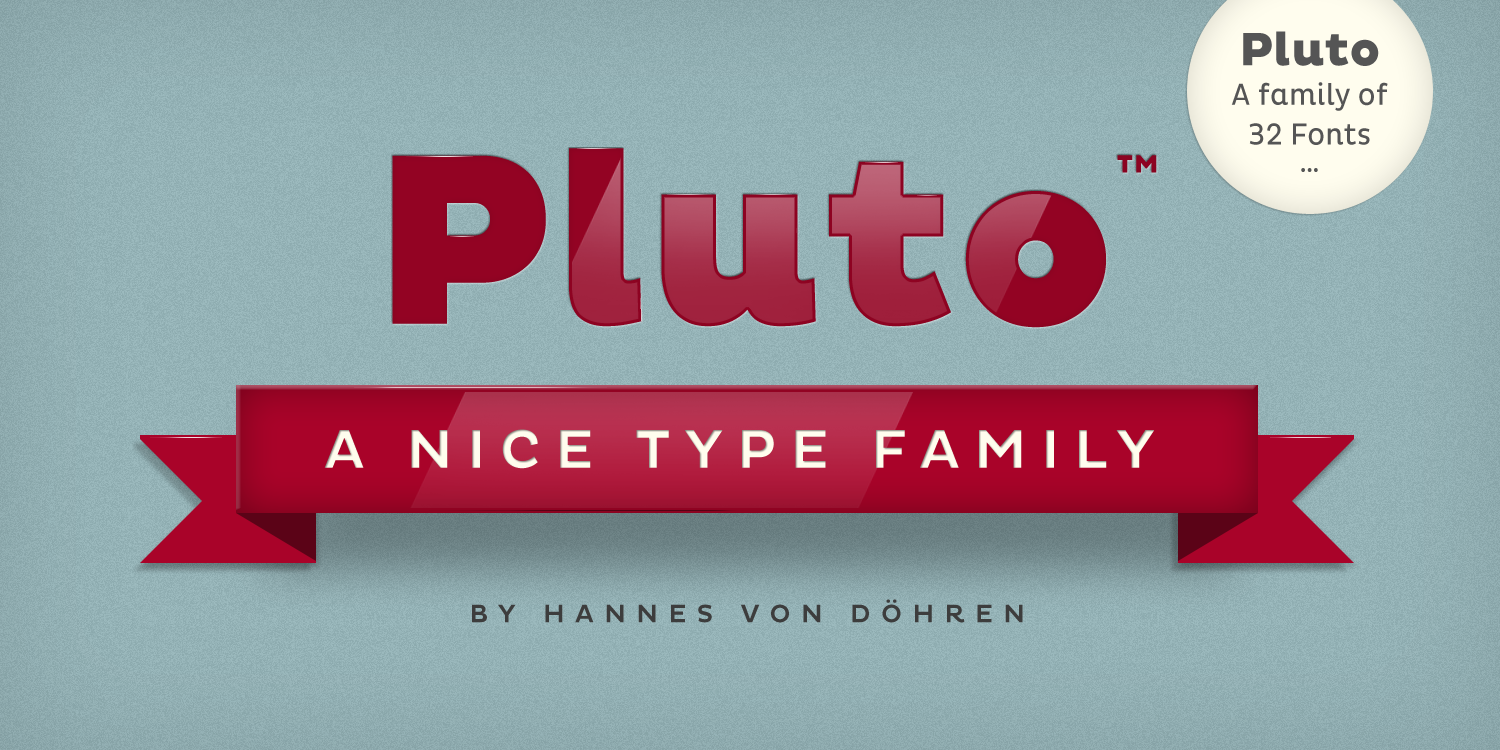
Pluto Font is perfectly designed for modern branding projects, social media graphics, poster designs, logo creation, gaming interfaces, tech startup branding, mobile app headers, music album covers, fashion magazines, and contemporary web design projects that demand a futuristic and dynamic aesthetic.
What makes Pluto Font so exciting is its bold, space-age inspired design that captures the essence of cosmic exploration and technological advancement. This font features distinctive geometric shapes with smooth curves and sharp angles that create a sense of movement and energy. The letterforms are carefully crafted to evoke feelings of innovation, progress, and limitless possibilities, making it an ideal choice for brands that want to convey cutting-edge technology or forward-thinking vision.
The Pluto Font family typically includes multiple variations such as regular, bold, light, condensed, and extended versions. Each style maintains the core design philosophy while offering different weights and proportions to accommodate various design requirements and hierarchy needs across different applications.
Creative professionals consistently choose Pluto Font Free Download for projects that require a distinctive personality and memorable visual impact. Its unique character makes it particularly effective for headlines, titles, and branding elements where standing out from the competition is essential for success.
The font's versatility extends across both digital and print media, maintaining its visual integrity whether displayed on high-resolution screens or printed materials. Pluto Font performs exceptionally well in large display sizes where its intricate details and character nuances can be fully appreciated by viewers.
Typography enthusiasts appreciate the font's contemporary approach to letterform design, which successfully balances readability with artistic expression. The careful attention to spacing, kerning, and character relationships ensures professional results in complex design layouts.
For digital designers, Pluto Font offers excellent scalability and maintains its distinctive character across different screen resolutions and device types. Its optimized construction ensures consistent appearance whether viewed on desktop computers, tablets, or mobile devices.
Brand identity designers frequently select this font for clients in technology, entertainment, sports, and lifestyle sectors where a modern, energetic personality is desired. Its distinctive appearance helps brands establish a unique voice in crowded marketplaces.
Gaming and entertainment industry professionals particularly value Pluto Font for its ability to convey excitement and adventure. The font's dynamic characteristics make it perfect for game titles, movie posters, and promotional materials where capturing audience attention is crucial.